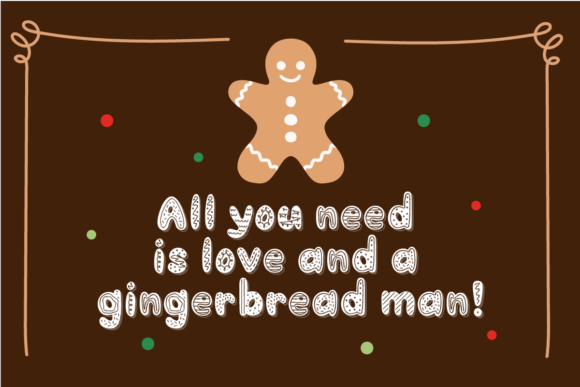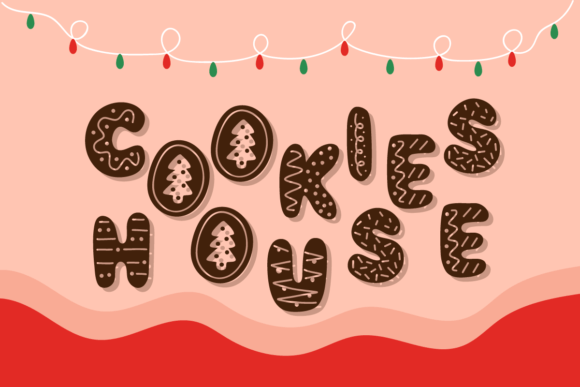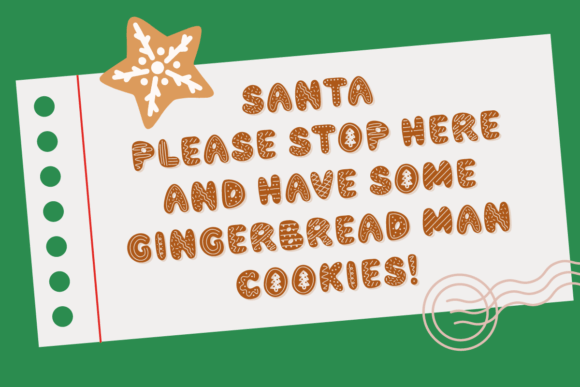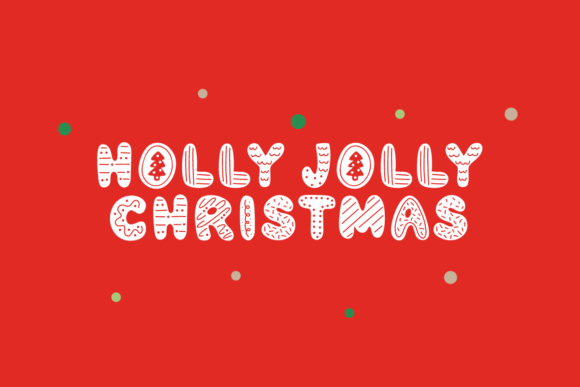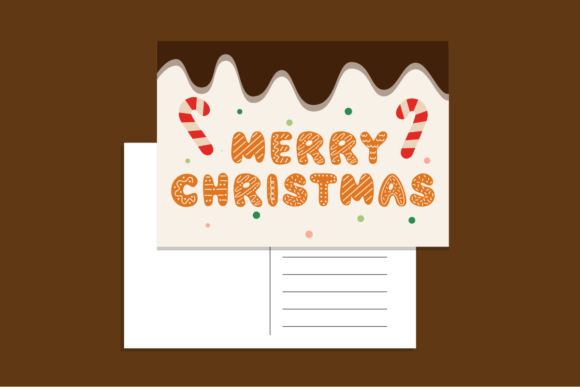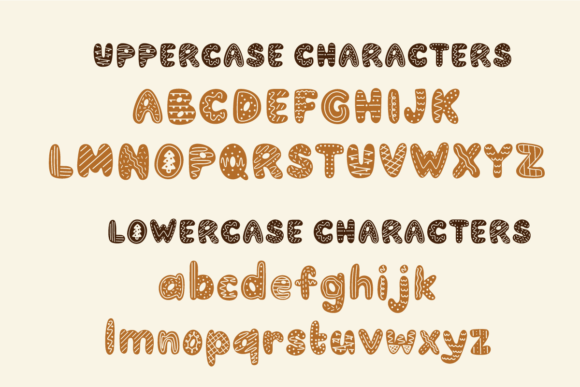
Gingerbread Font: The Sweetest Addition to Your Christmas Designs
Are you looking for a font that captures the whimsical and playful spirit of Christmas? Look no further than the Gingerbread Font! This adorable font is designed to resemble gingerbread cookies, making it the perfect addition to your holiday designs. In this article, we’ll dive into the features and benefits of the Gingerbread Font, and explore the many ways you can use it to create festive and fun designs.
What is Gingerbread Font?
Gingerbread Font is a unique and charming font that is inspired by the classic Christmas treat. Its gingerbread cookies style is sure to bring a smile to anyone’s face, and its versatility makes it perfect for a wide range of design projects. Whether you’re working on a circuit project, designing a shirt, or creating a Christmas invitation, the Gingerbread Font is sure to add a touch of holiday cheer.
Features of Gingerbread Font
• Cute and Playful Design: The Gingerbread Font features a cute and playful design that is sure to capture the spirit of Christmas.
• Versatile: This font is perfect for a wide range of design projects, from circuit projects and shirts to Christmas invitations and mugs.
Uses of Gingerbread Font
The Gingerbread Font is perfect for a wide range of design projects, including:
• Circuit Projects: Add a touch of holiday cheer to your circuit projects with the Gingerbread Font.
• Shirts and Apparel: Design festive shirts and apparel for the holiday season using the Gingerbread Font.
• Christmas Invitations: Create adorable Christmas invitations that will set the tone for your holiday party.
• Mugs and Drinkware: Design festive mugs and drinkware that make perfect gifts for friends and family.
• Stickers and Decals: Create fun and playful stickers and decals using the Gingerbread Font.
• Playful Quotes and Posters: Create inspiring and playful quotes and posters that showcase the Gingerbread Font.
• Logos and Branding: Use the Gingerbread Font to create a unique and memorable logo for your business or brand.
• Greeting Cards and Packaging: Add a personal touch to your greeting cards and packaging with the Gingerbread Font.
Tips for Using Gingerbread Font
Here are a few tips for using the Gingerbread Font in your designs:
• Experiment with Different Colors: The Gingerbread Font looks great in a variety of colors, so don’t be afraid to experiment and find the perfect hue for your design.
• Mix and Match with Other Fonts: Combine the Gingerbread Font with other fonts to create a unique and visually appealing design.
• Use it in Combination with Illustrations: The Gingerbread Font pairs perfectly with illustrations, so consider using it in combination with your favorite holiday illustrations.
The Gingerbread Font is a fun and playful font that is sure to add a touch of holiday cheer to your designs. With its cute and whimsical design, versatility, and ease of use, it’s the perfect addition to any design project. Whether you’re a designer, crafter, or DIY enthusiast, the Gingerbread Font is sure to become a favorite in your design arsenal. So why wait? Download the Gingerbread Font today and start creating festive and fun designs that will delight your audience!